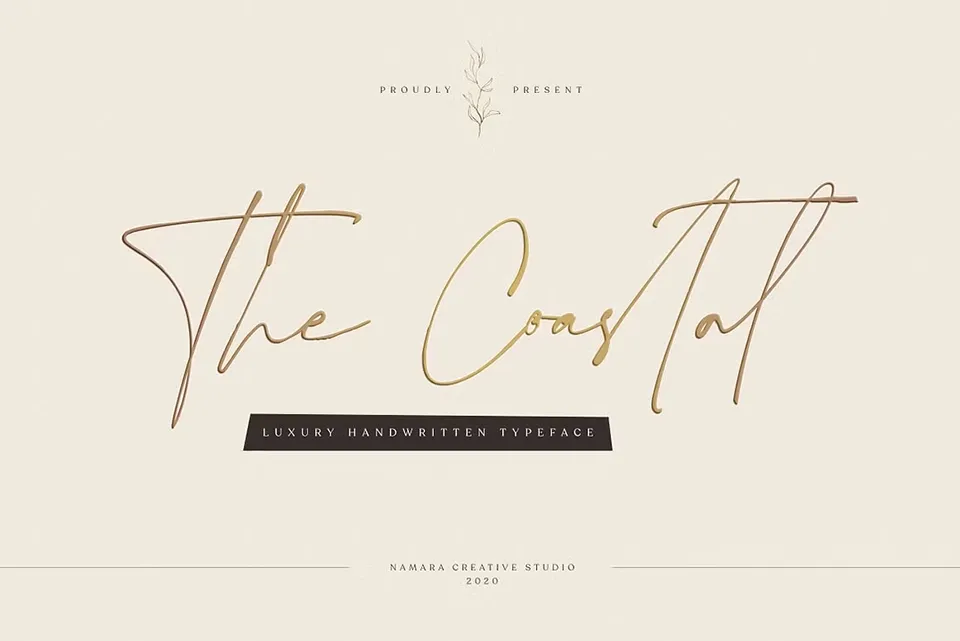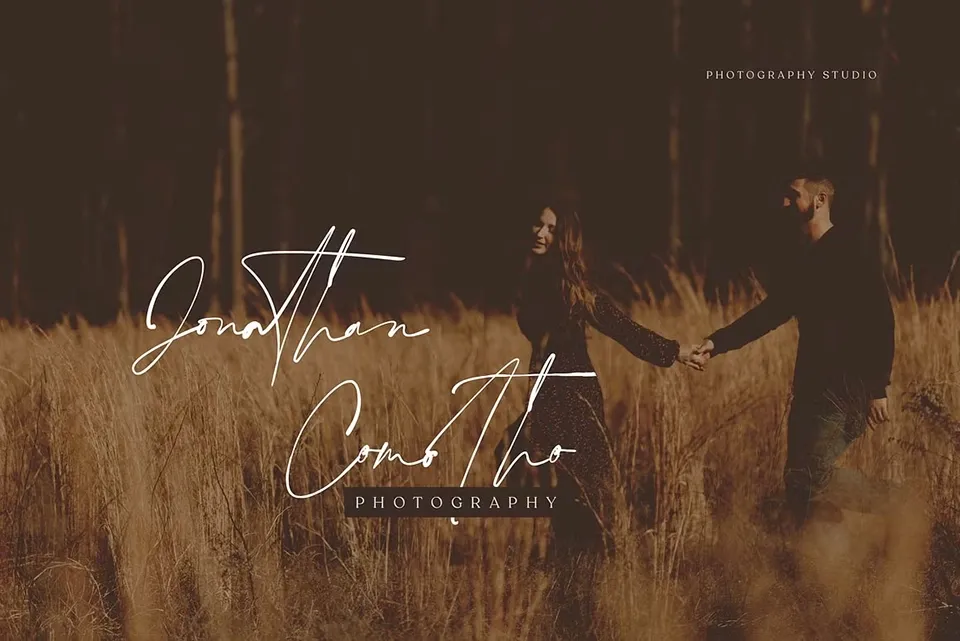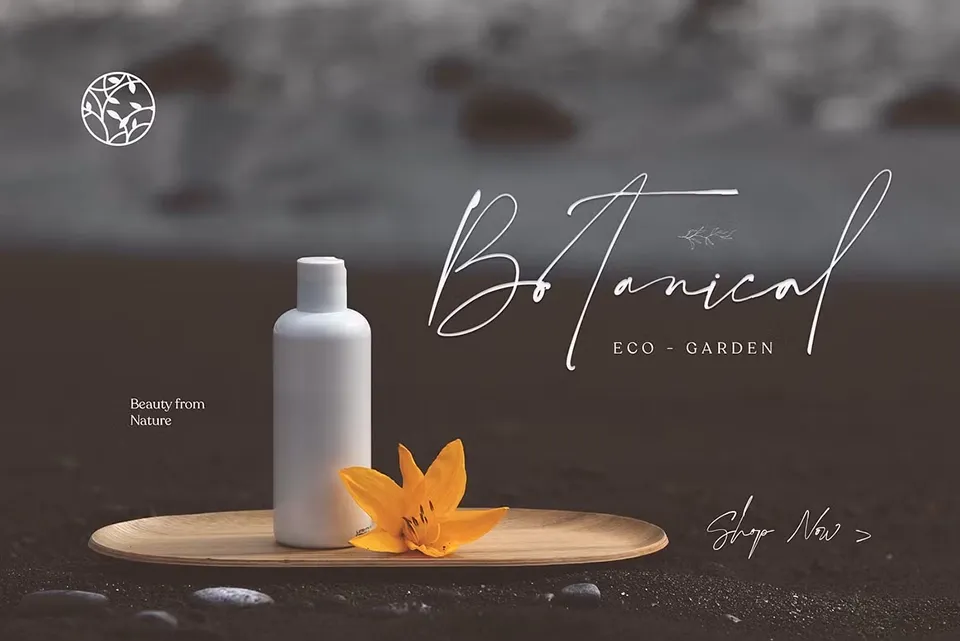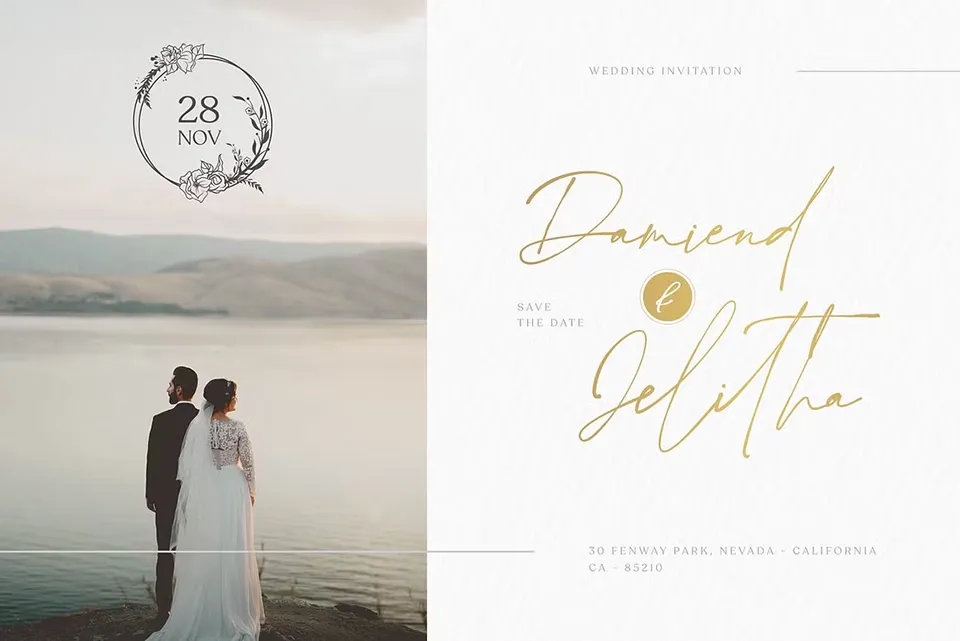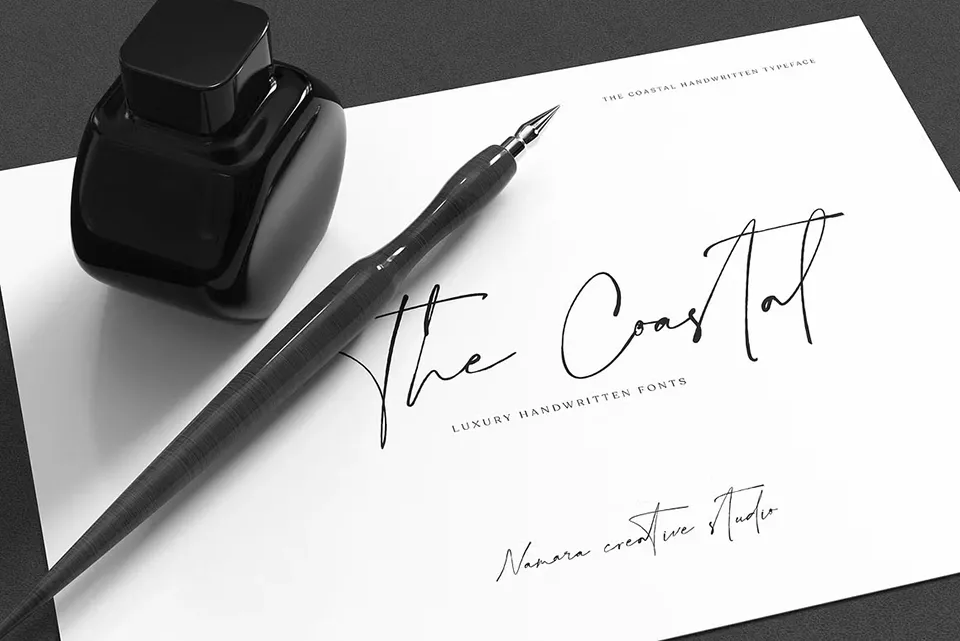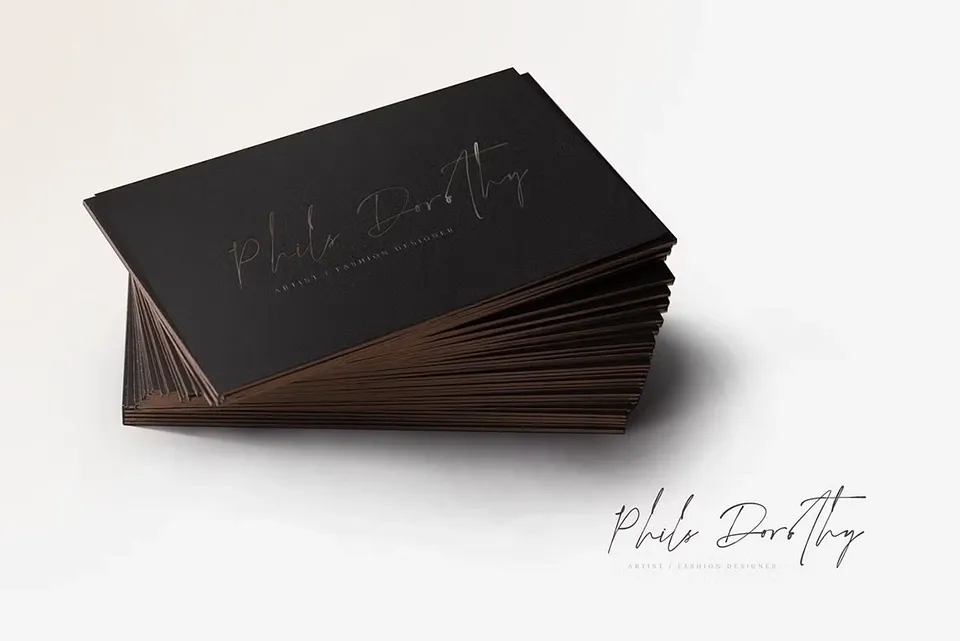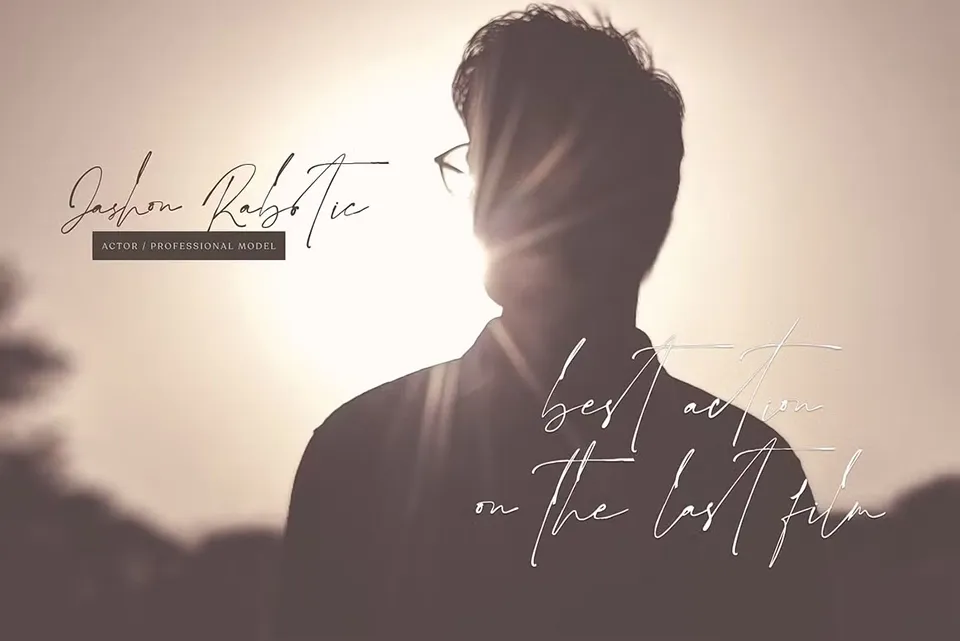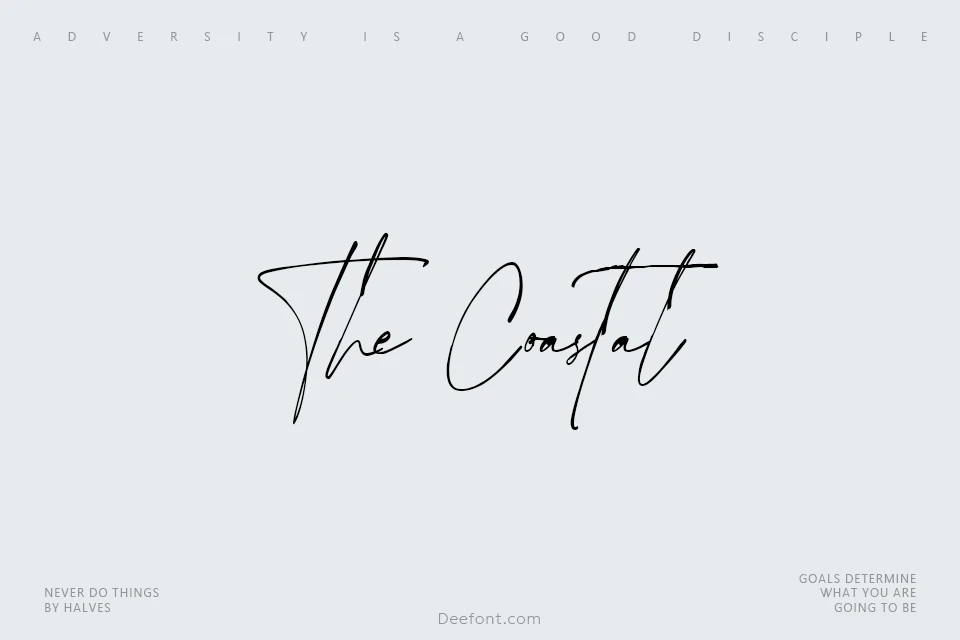
The Coastal Font
The Coastal Font is a luxurious handwritten typeface that combines elegance with a modern aesthetic. Featuring graceful, flowing strokes and delicate curves, it is designed to add sophistication and charm to any creative project. Perfect for branding, wedding invitations, logos, or editorial designs, The Coastal Font exudes refinement while maintaining a personal and approachable feel. Its stylish letterforms and smooth lines create a timeless look that stands out in both formal and casual contexts. Whether you’re crafting high-end designs or adding a touch of class to everyday projects, The Coastal Font is the ideal choice for effortless beauty and versatility.